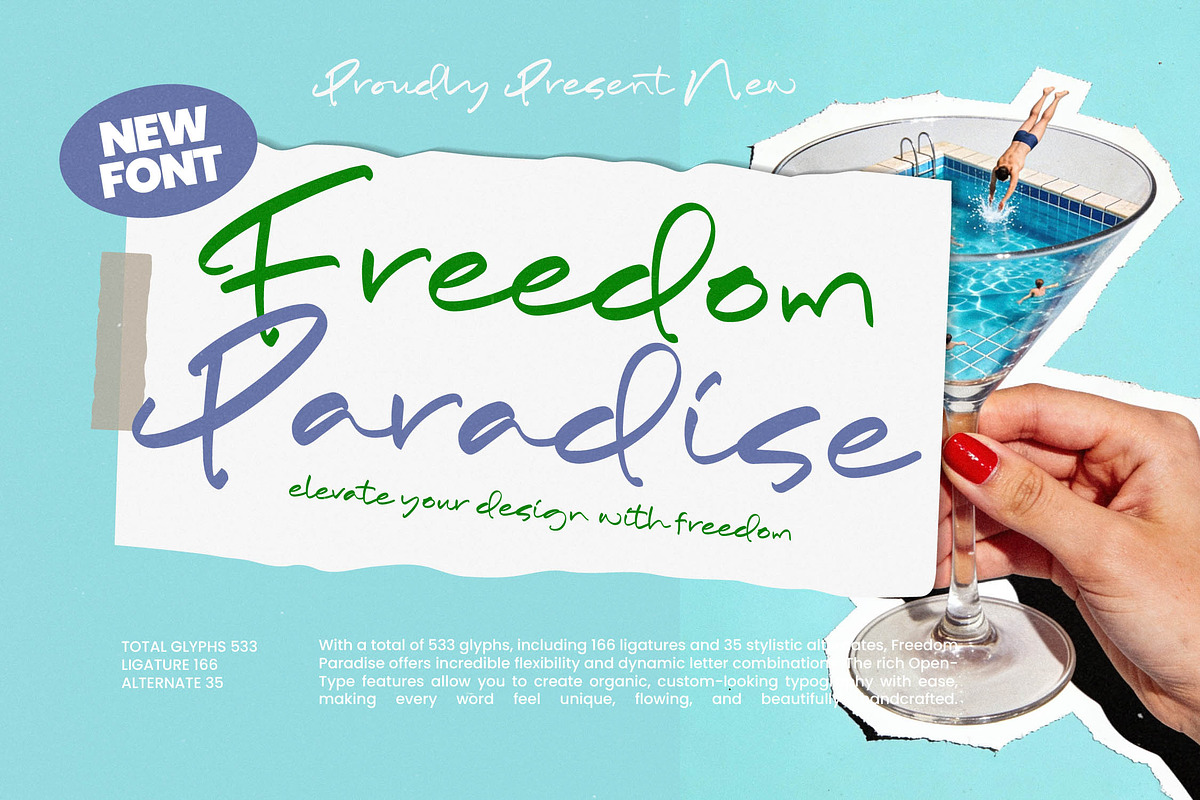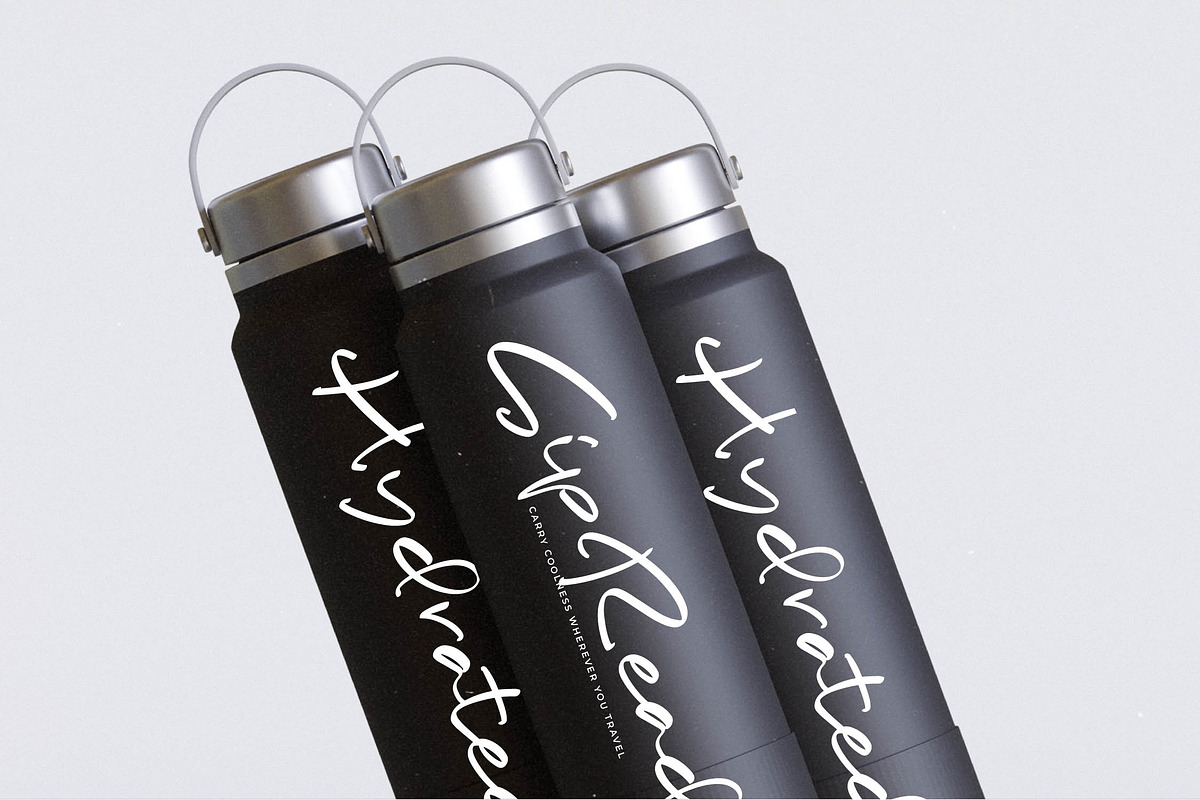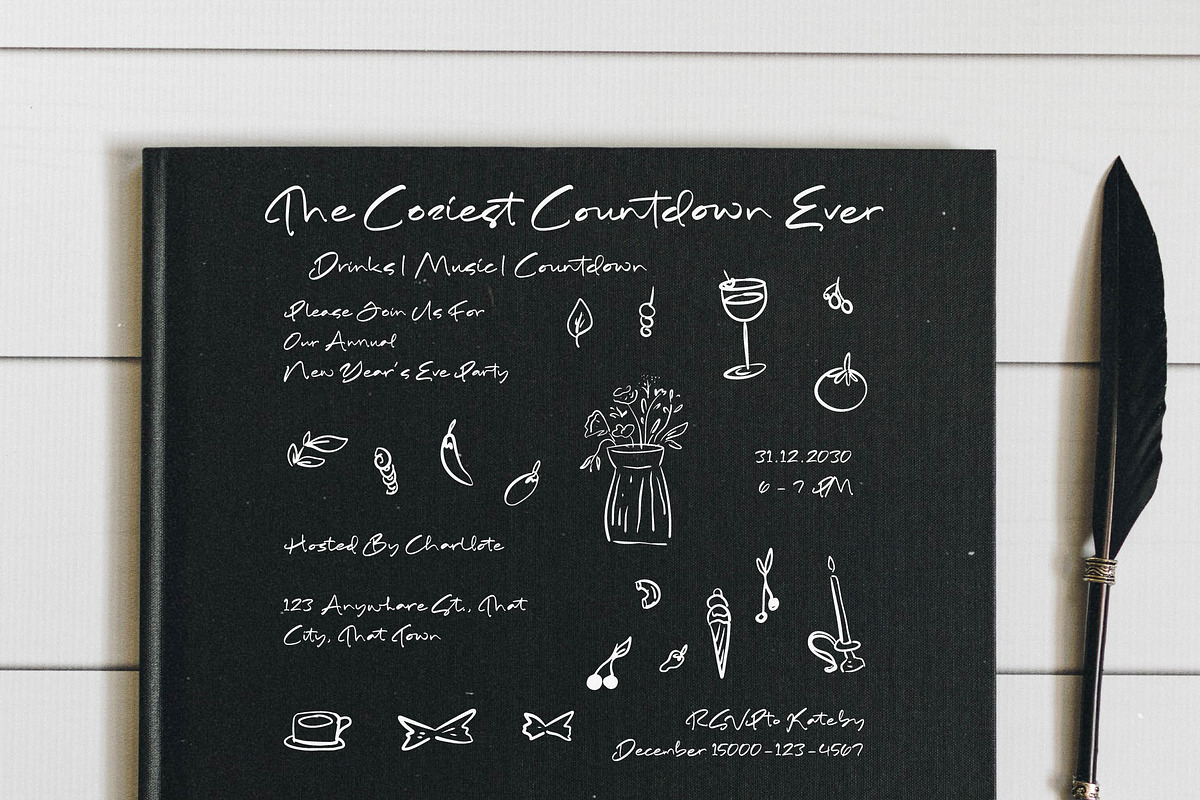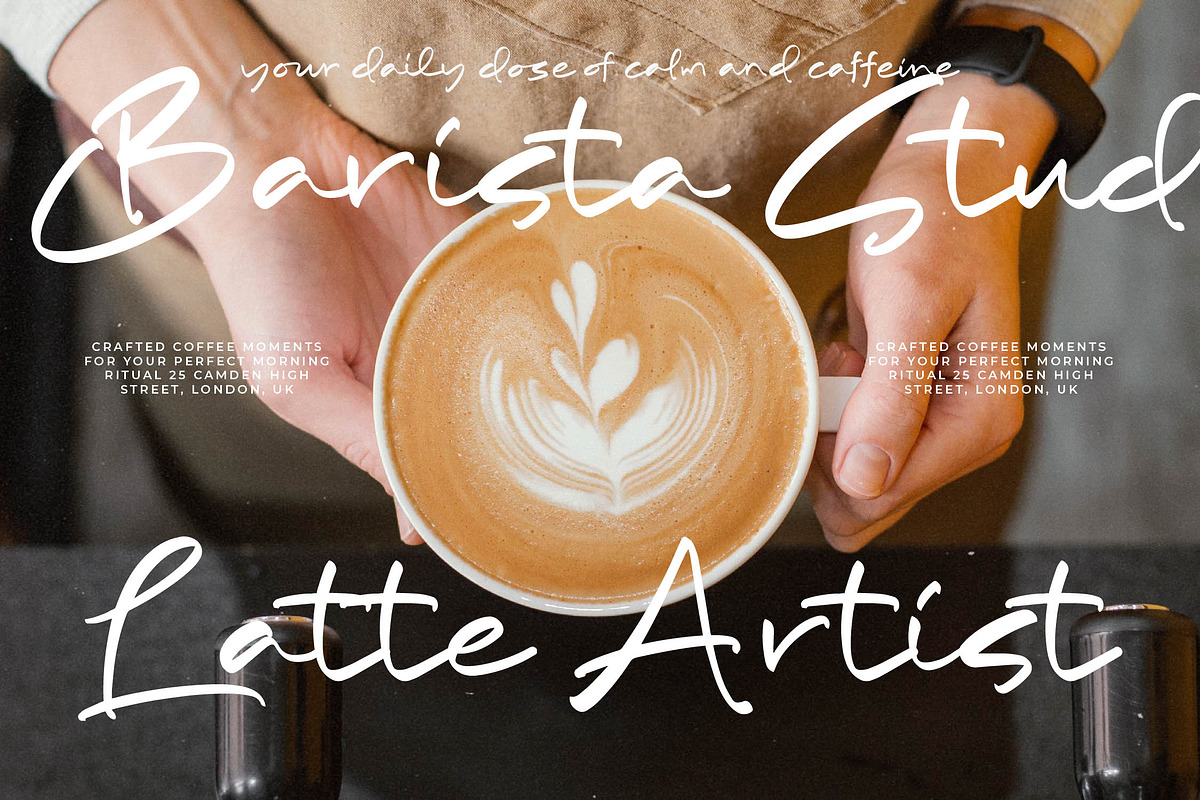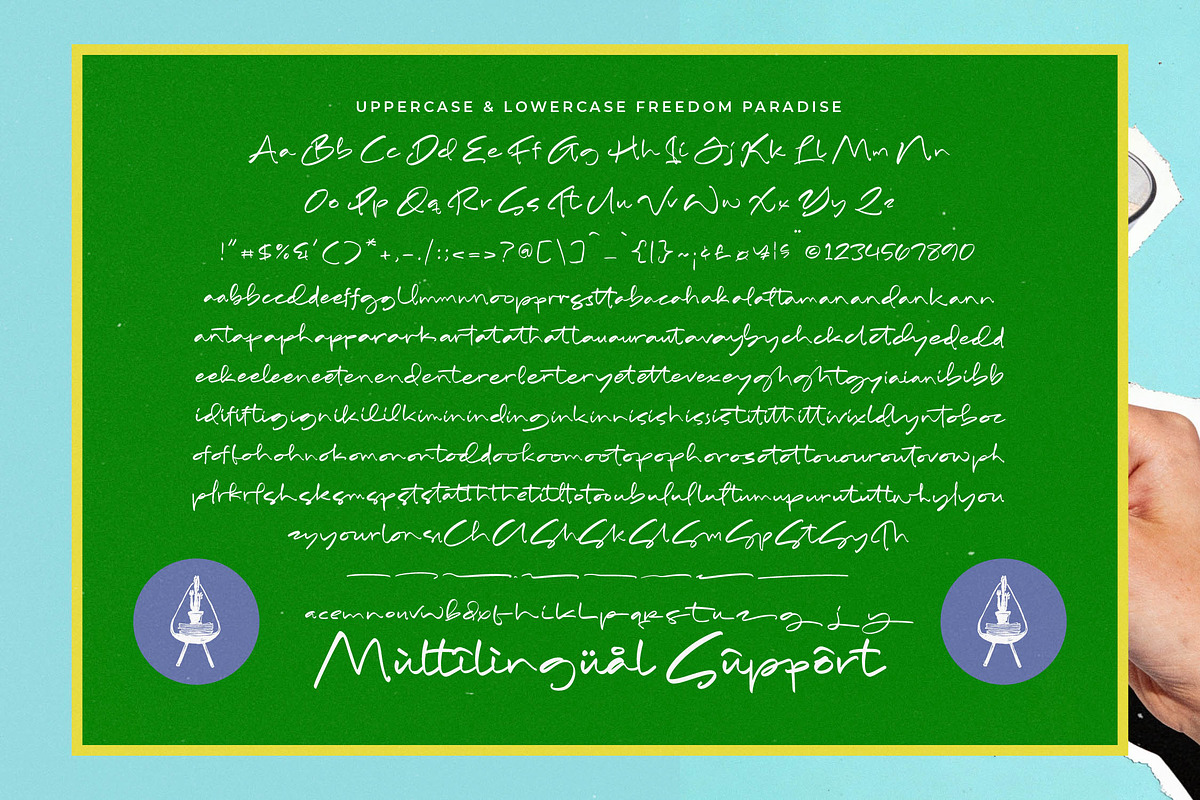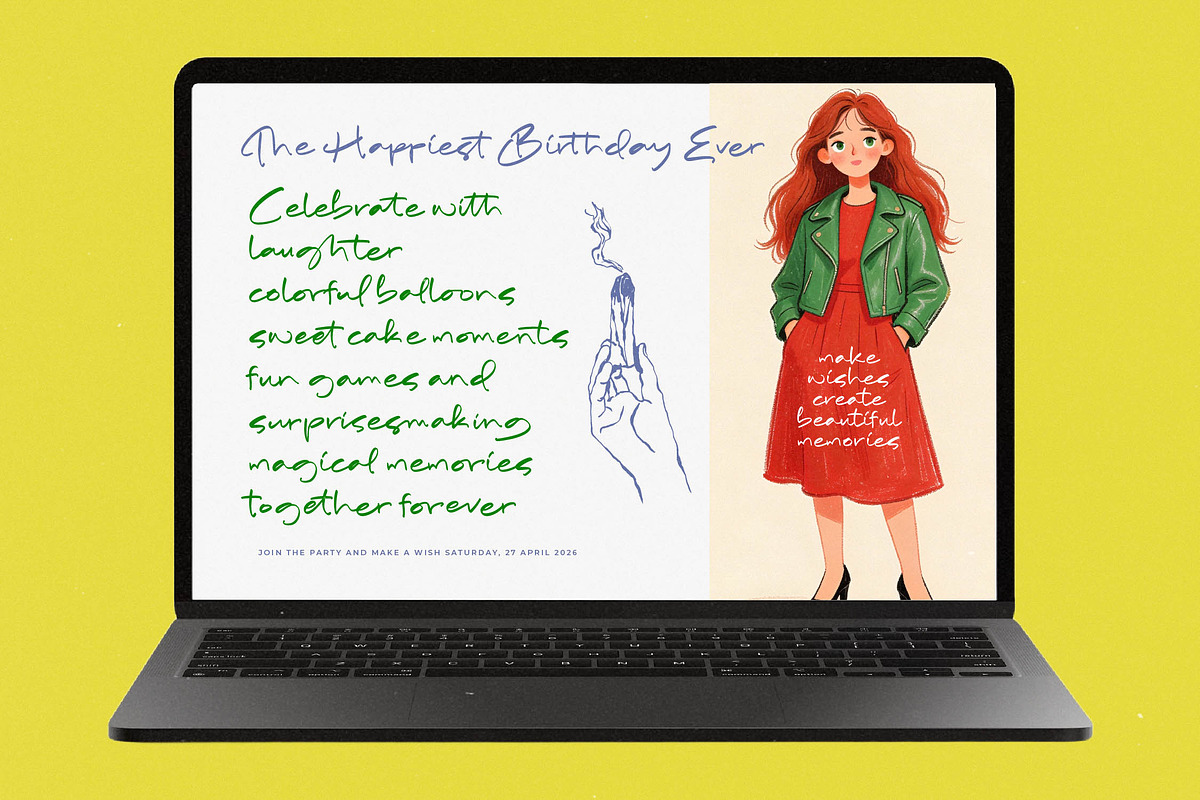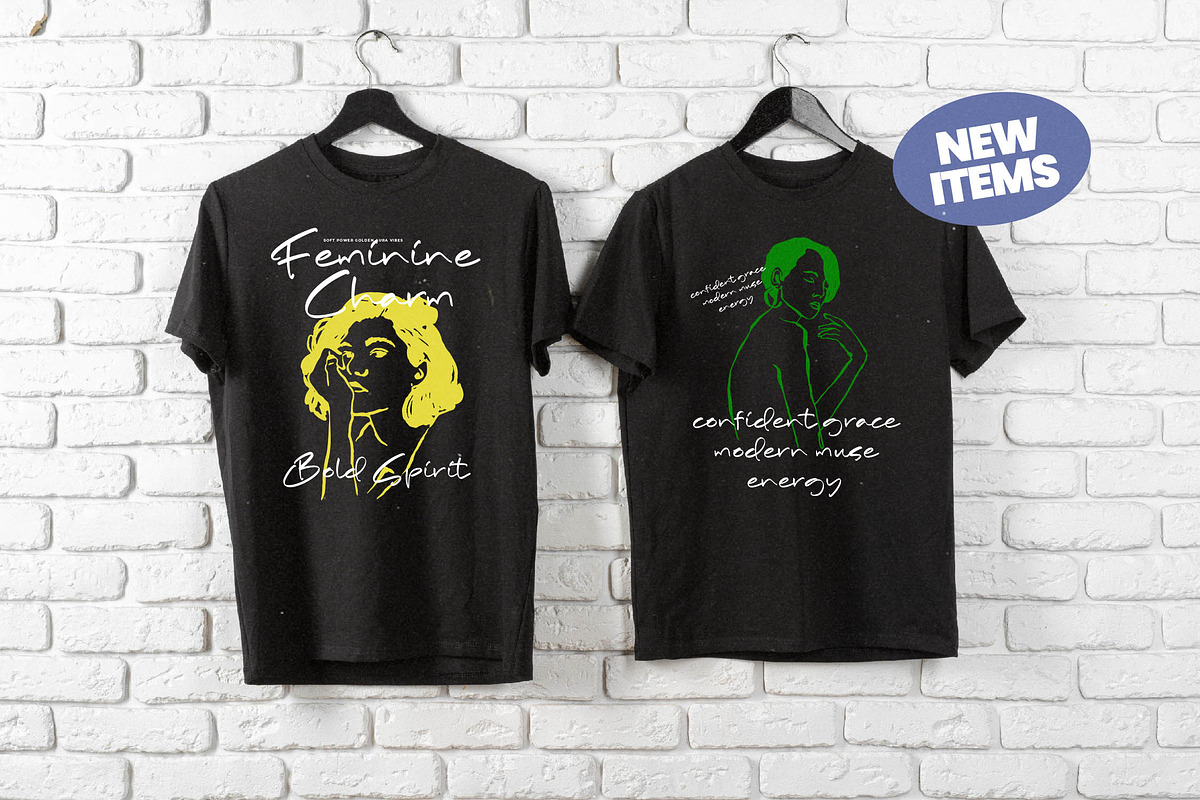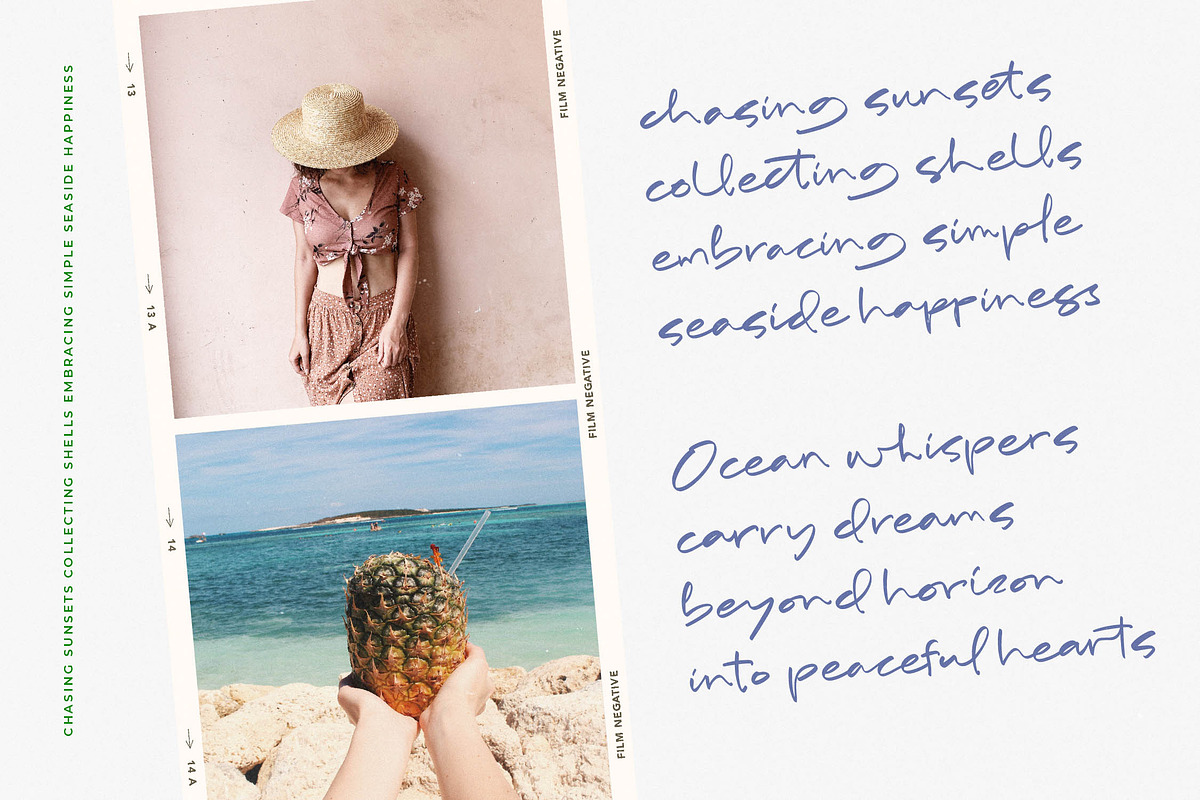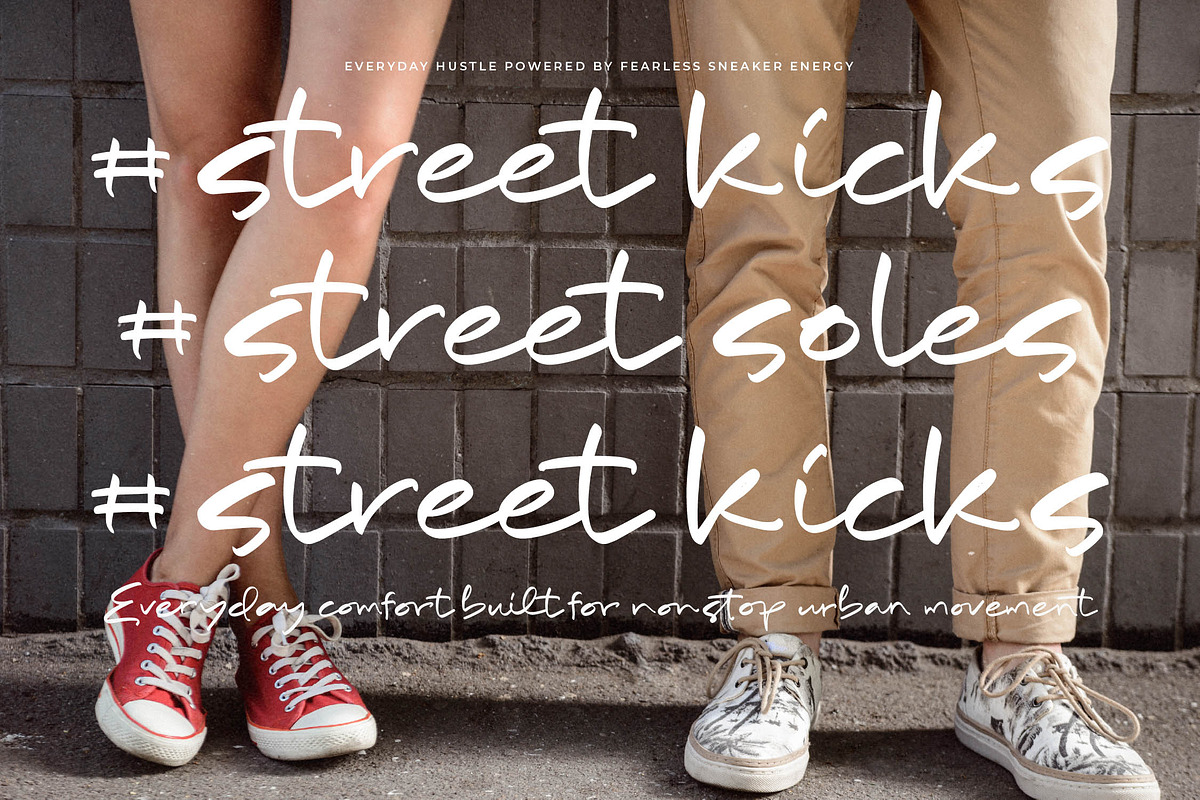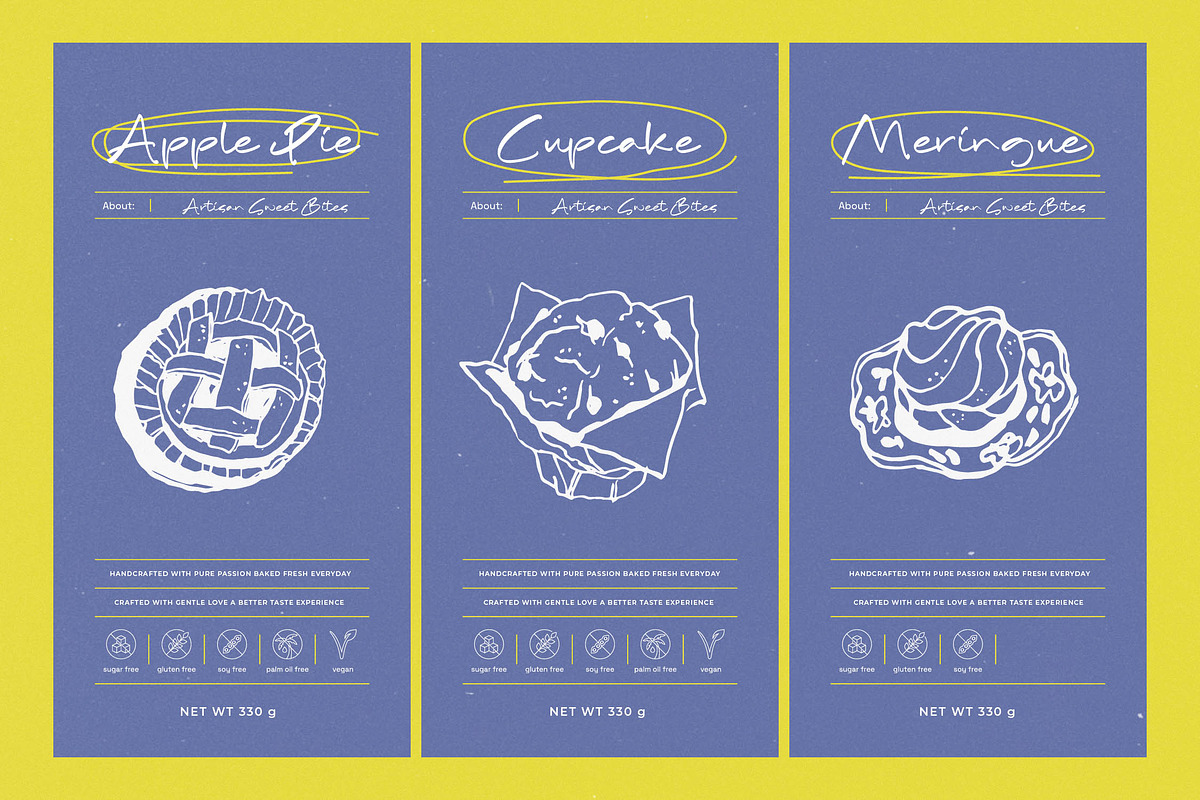
Freedom Paradise Handwritten Script
Freedom Paradise - Handwritten Script Font , Experience the effortless charm of Freedom Paradise, a font that captures the essence of a sun-soaked escape in every stroke. This handwriting script is designed to bring an air of organic elegance and untamed beauty to your creative canvas.
Born from the spirit of long summer afternoons and the fluid motion of a handwritten note, Freedom Paradise draws inspiration from the carefree world of travel journals and tropical retreats. It embodies a sense of liberation, mimicking the natural flow of ink on paper to create a visual atmosphere that is both intimate and expansive.
While it breaks the mold of a traditional modern serif display, this script offers the same level of luxury typography and sophisticated branding impact as a high-contrast serif. It functions as a premier editorial font, providing a human touch that balances perfectly with more rigid typographic layouts.
In an era dominated by the modern serif trend, this typeface provides the perfect organic counterpoint needed for contemporary editorial display fonts. Designers are increasingly seeking character-driven typography that feels authentic and handmade, making this font an essential tool for staying ahead of current visual movements.
This versatile script is the ideal choice for high-end logo design and comprehensive branding projects that require a distinct personal touch. From chic fashion labels and romantic wedding stationery to luxury packaging and evocative editorial spreads, Freedom Paradise adapts seamlessly to any high-style environment.
With a robust set of 533 glyphs, this font is packed with stunning ligatures and creative alternates that allow for truly unique word shapes. The inclusion of decorative swashes and full multilingual support ensures that your designs speak to a global audience with a complete set of international characters.